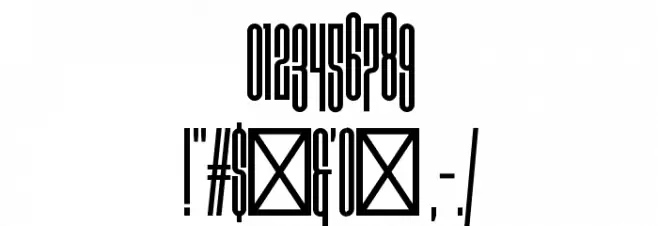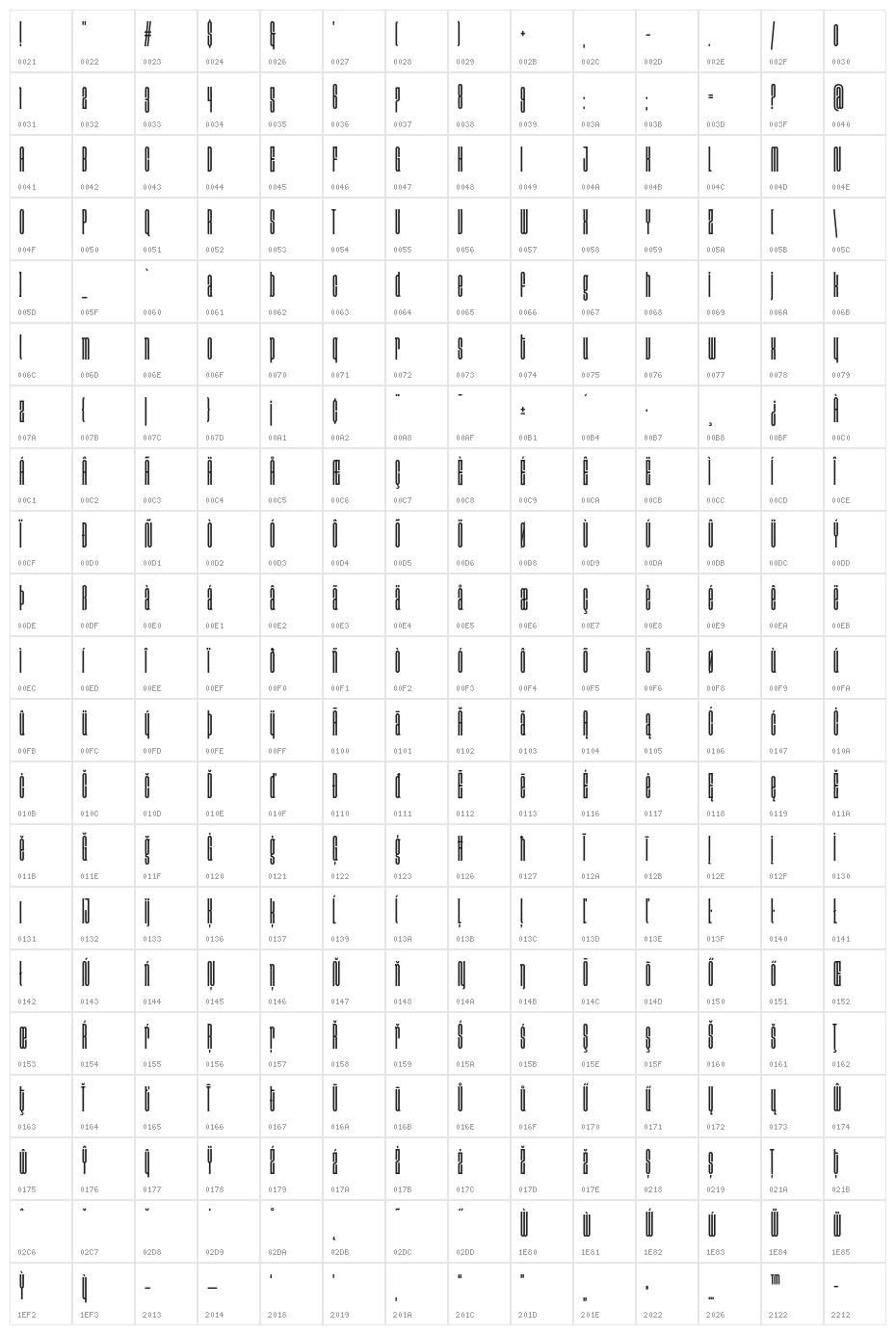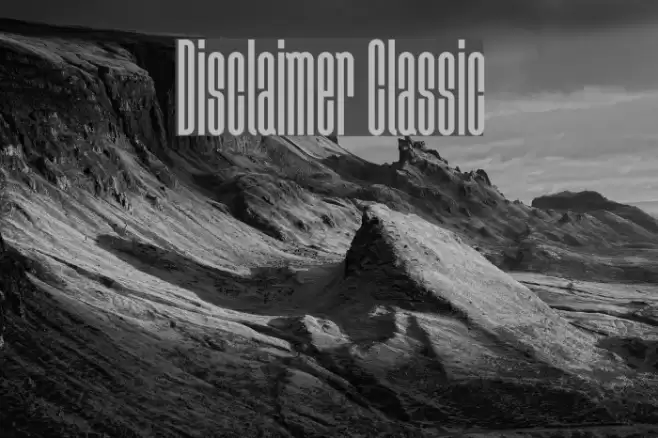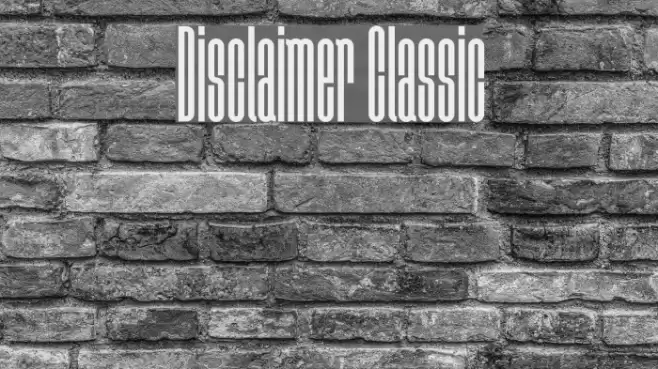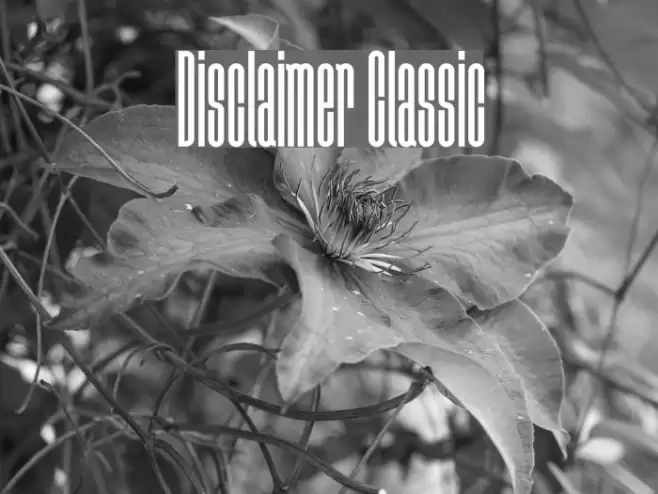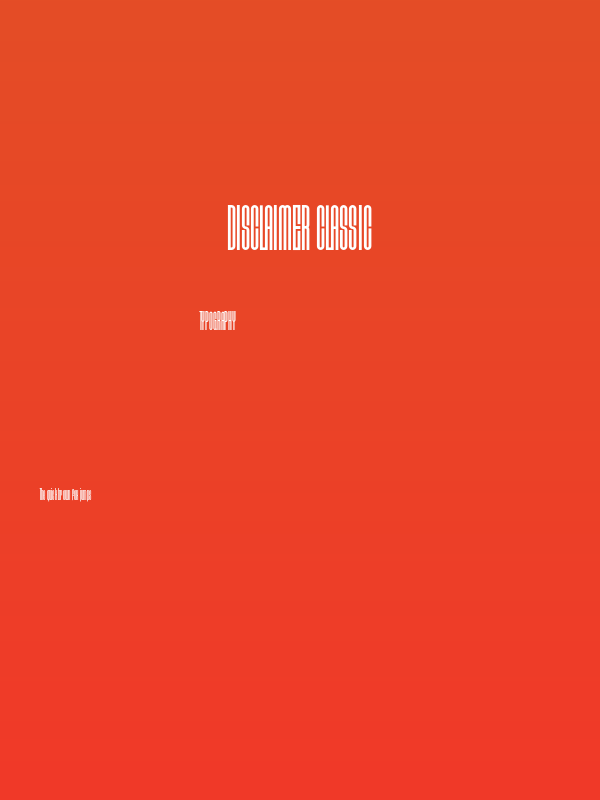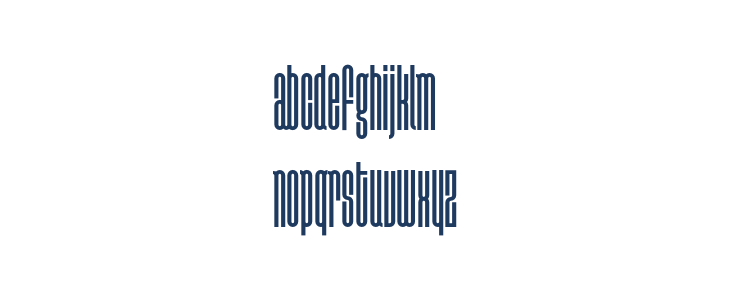
Disclaimer Classic Font
Disclaimer Classic Description
This font features a tall and narrow design with a strong vertical emphasis, creating a striking and modern appearance. The characters are elongated, with consistent stroke widths that give it a uniform and clean look. The uppercase and lowercase letters maintain a cohesive style, while the numerals and special characters complement the overall aesthetic. The font's geometric structure and minimalistic approach make it suitable for contemporary design projects. Its unique style is both eye-catching and versatile, allowing it to stand out in various applications.